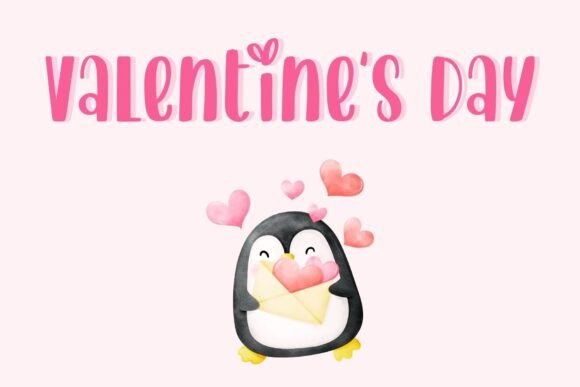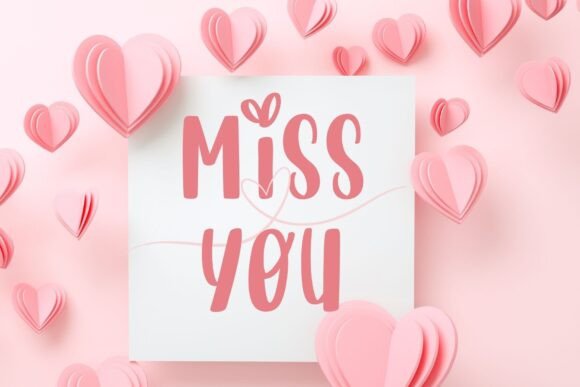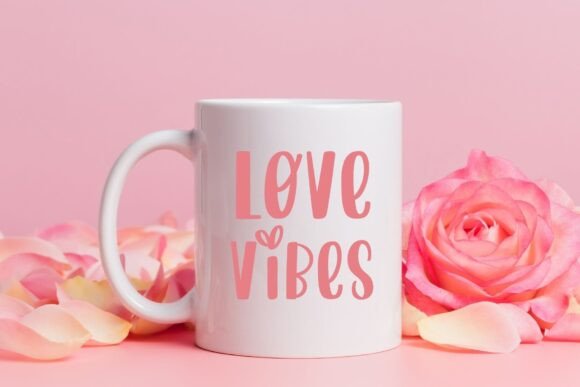
Introduction to Lineheart Font
Lineheart is a charming and playful handwritten font that adds a touch of sweetness to any project.
Featuring rounded, bold letterforms with whimsical heart motifs, this font is perfect for love-themed designs, invitations, greeting cards, and more Its friendly and approachable style brings joy and warmth to every word, making it ideal for creative and romantic projects.
Key Features of Lineheart Font
Why Choose Lineheart Font?
Lineheart Font offers exceptional quality and versatility, making it a valuable addition to your design toolkit. Whether you’re creating for personal projects or commercial use, Lineheart Font delivers professional results.